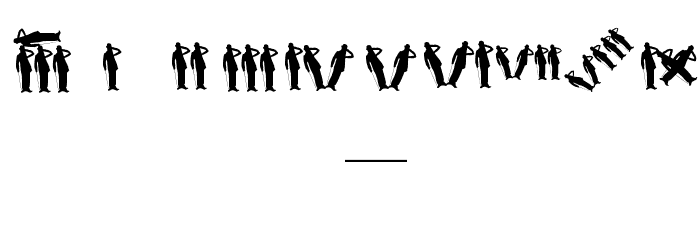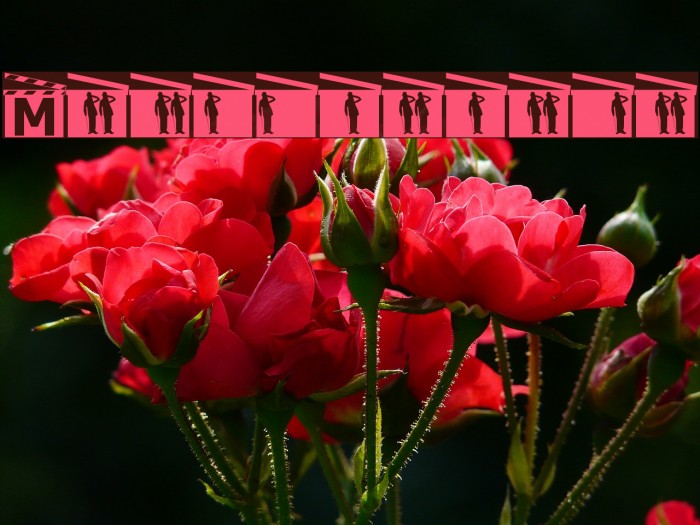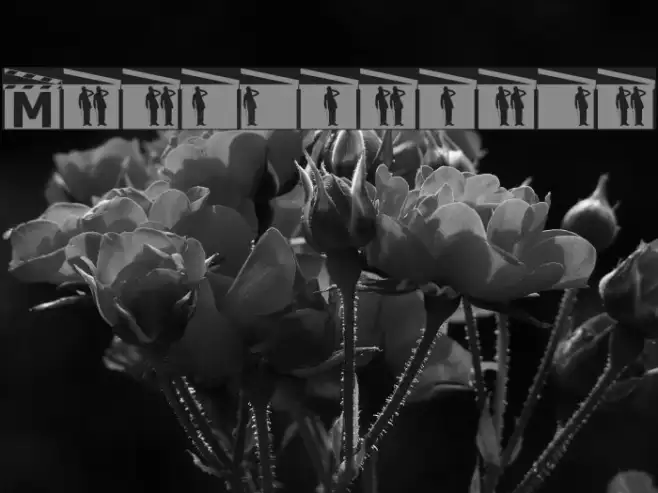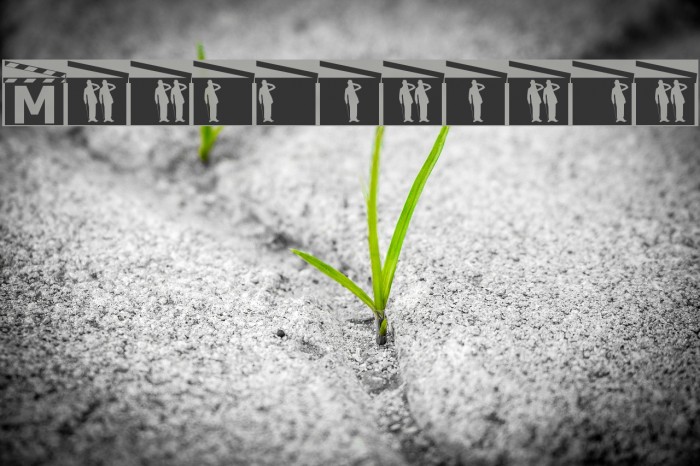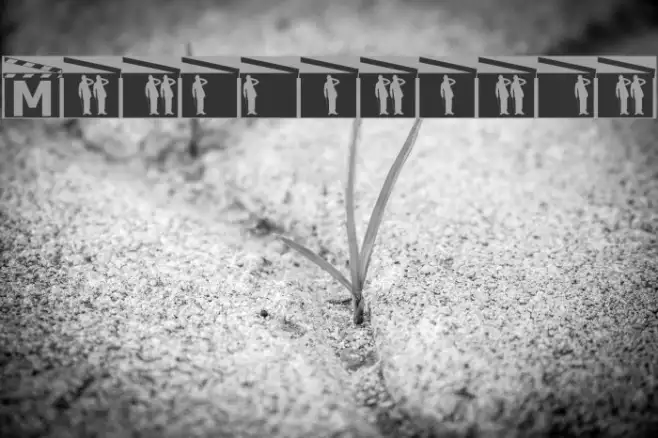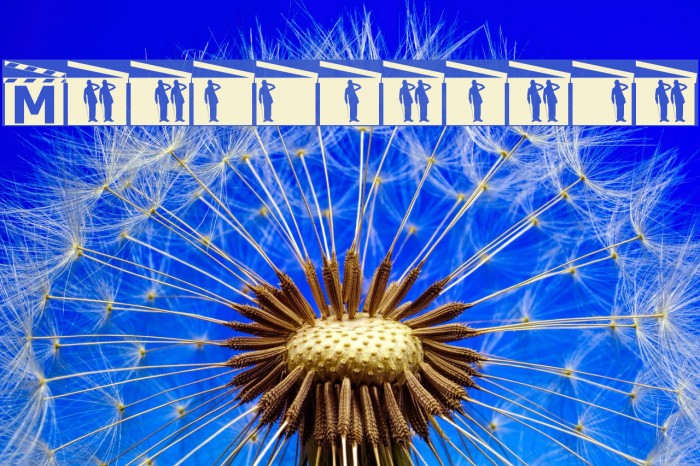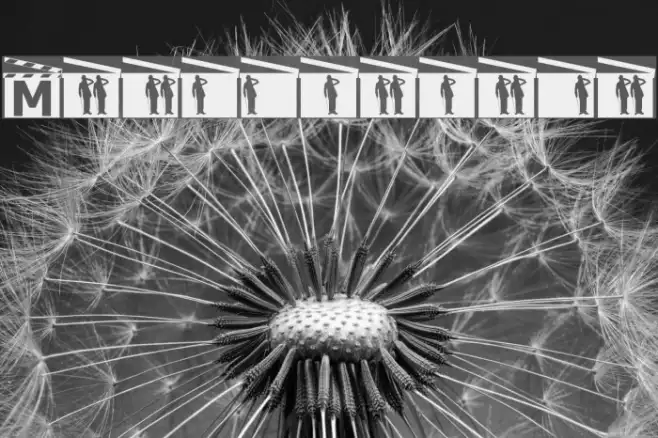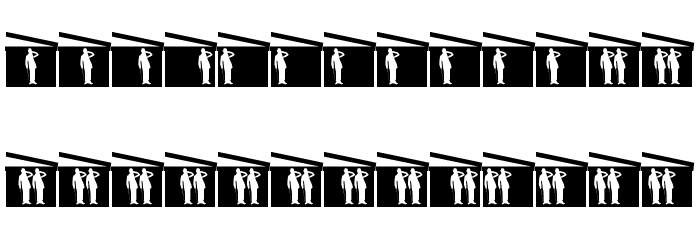
Movieboards Font
This font features a unique design where each character is embedded within a stylized movie clapperboard. The uppercase letters are bold and prominent, with a strong presence that makes them ideal for attention-grabbing headlines. The lowercase letters maintain the same clapperboard theme, providing a cohesive look throughout. The numbers and special characters are also integrated into the clapperboard design, ensuring consistency across all glyphs. This font is perfect for projects related to film, entertainment, or any creative endeavor that seeks to evoke a cinematic feel.
| Proposed Projects | Ideal for movie posters, film festival materials, entertainment branding, and creative projects with a cinematic theme. |